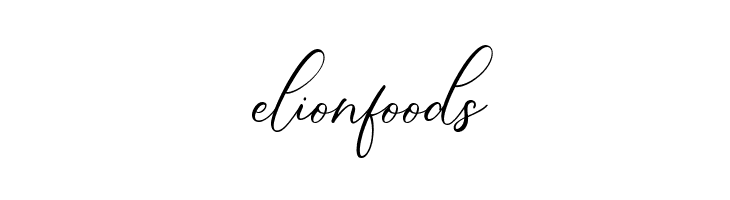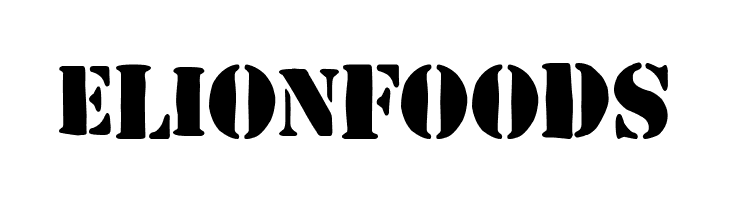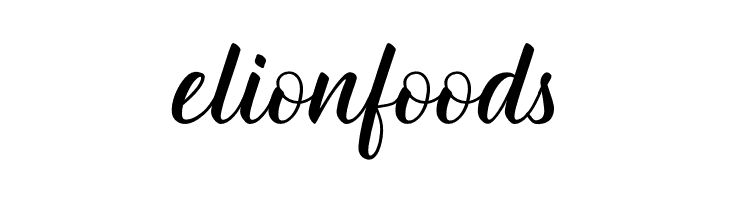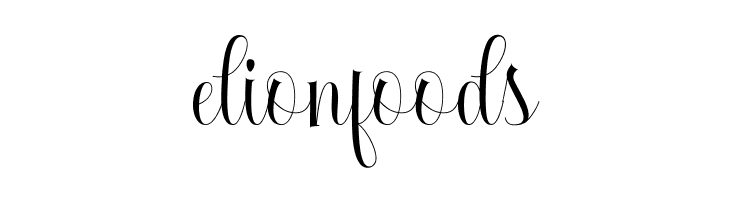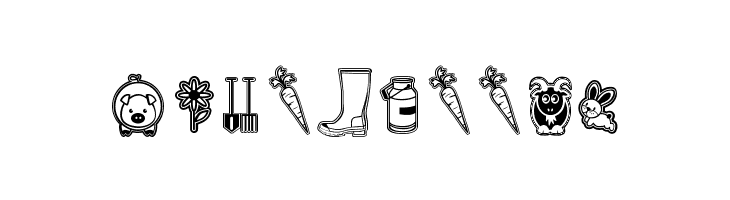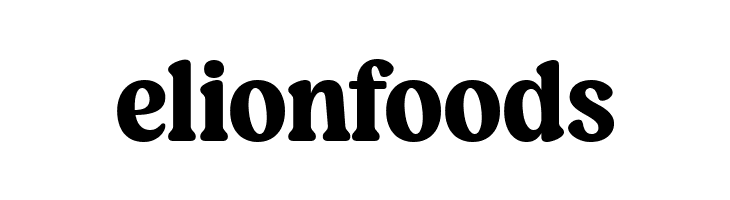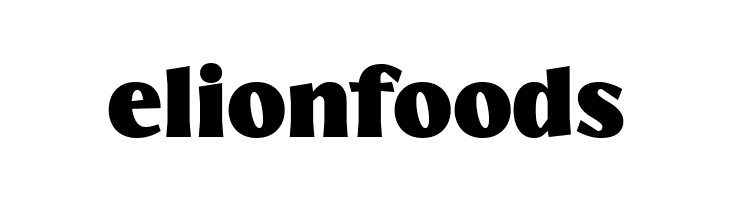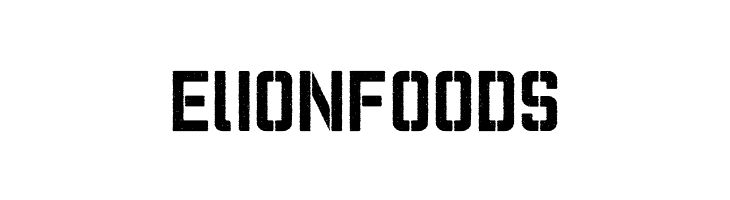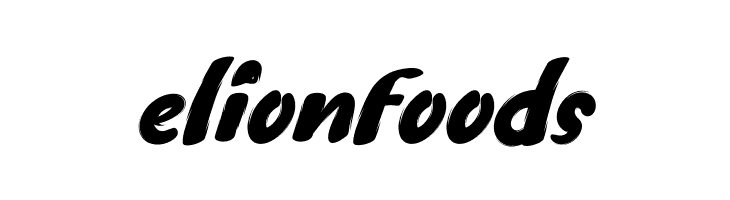
An elegant script font with intricate swirls and a classic calligraphic style.
A bold, military-inspired stencil font with distinct cut-out sections.
A bold, stencil-style font with strong, angular lines and distinct cutouts.
A graceful script font with flowing, cursive characters and consistent stroke width.
An elegant, decorative script font with intricate swirls and loops.
A farm-themed pictogram dingbat font with cartoon-style illustrations.
A bold, rounded font with a playful yet professional style.
A bold, modern font with strong, dramatic strokes and a slightly decorative style.
A bold, stencil-style font with a military-inspired design.
A bold and dynamic script font with a strong, fluid style.